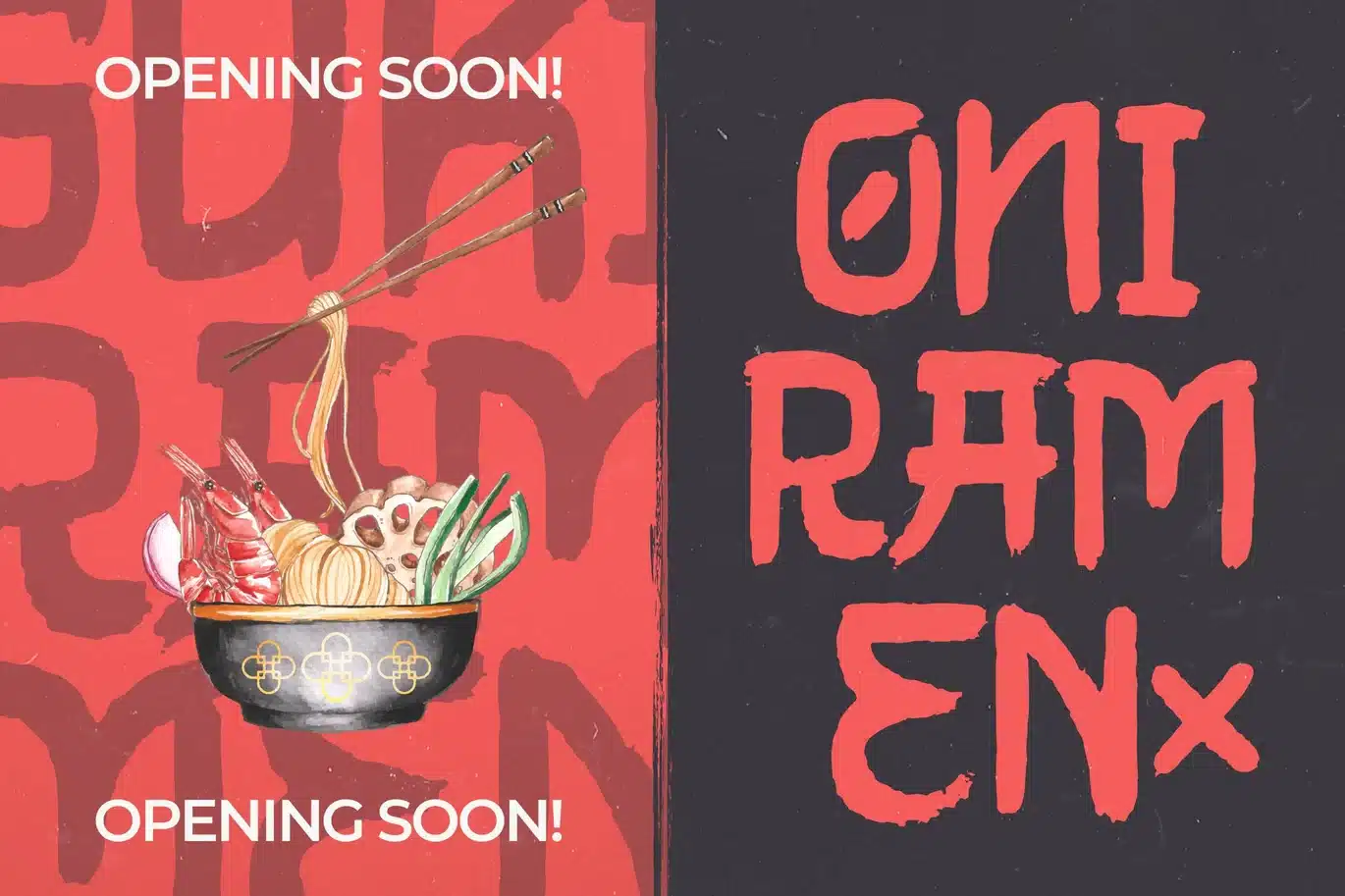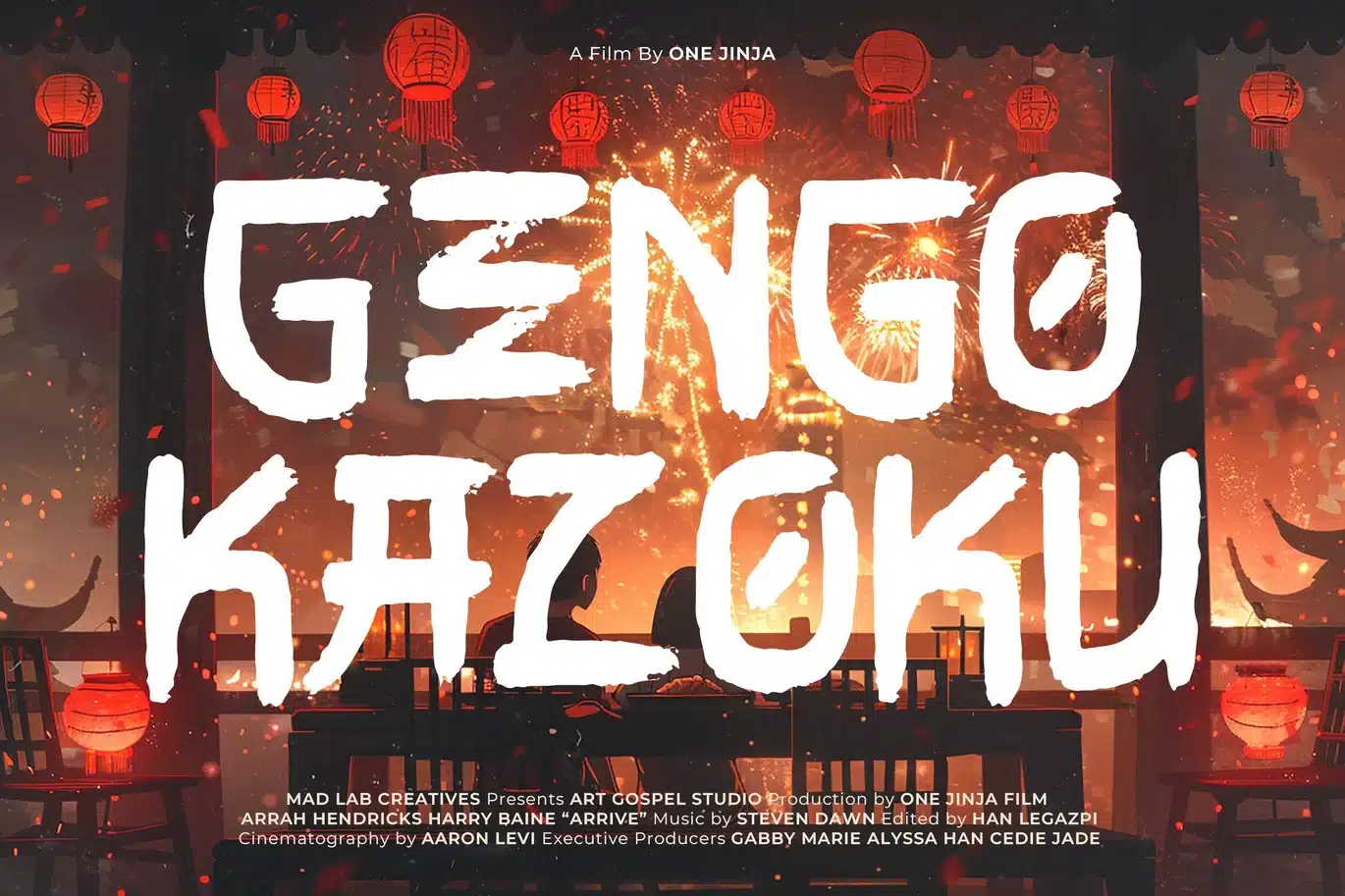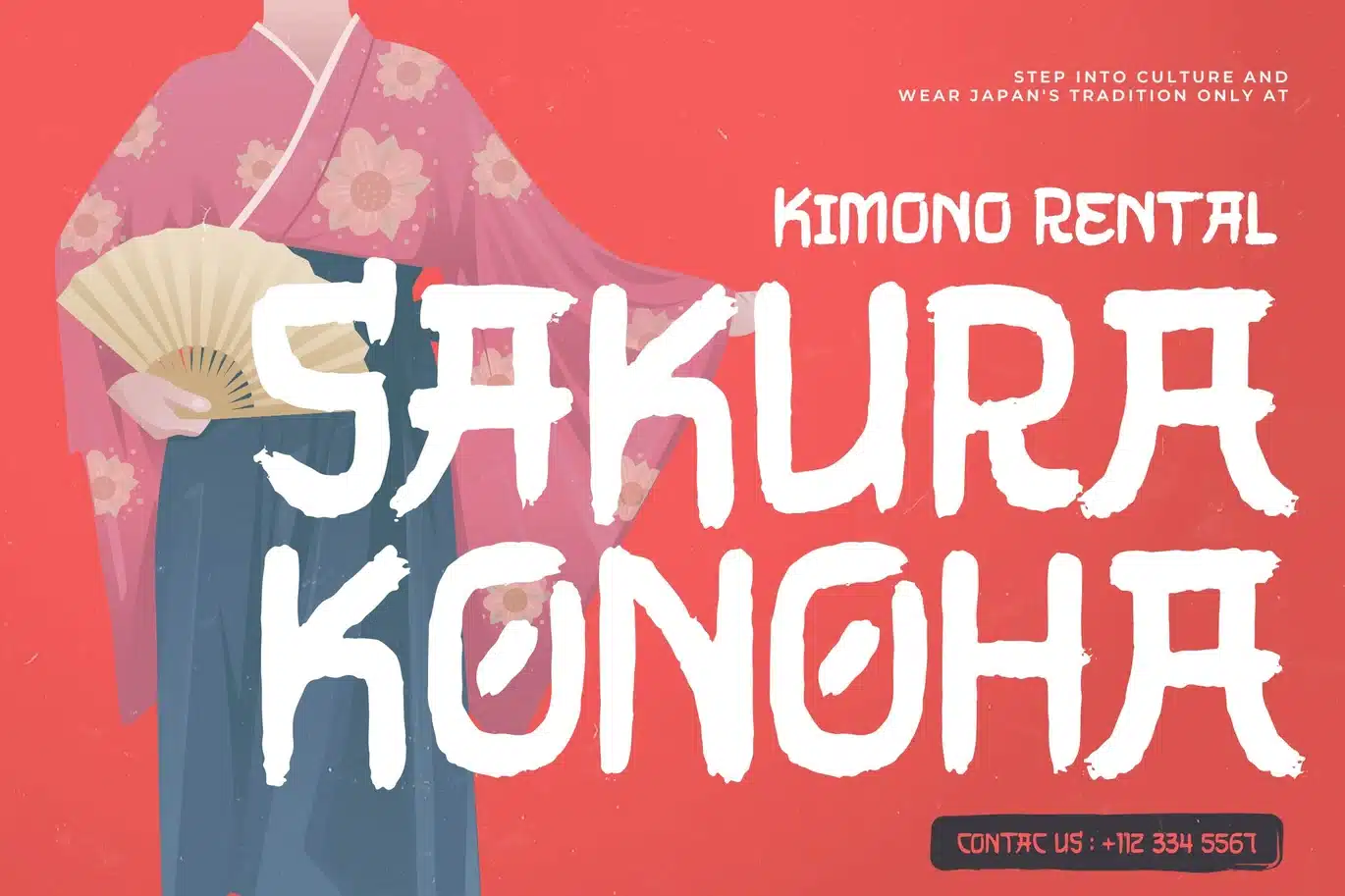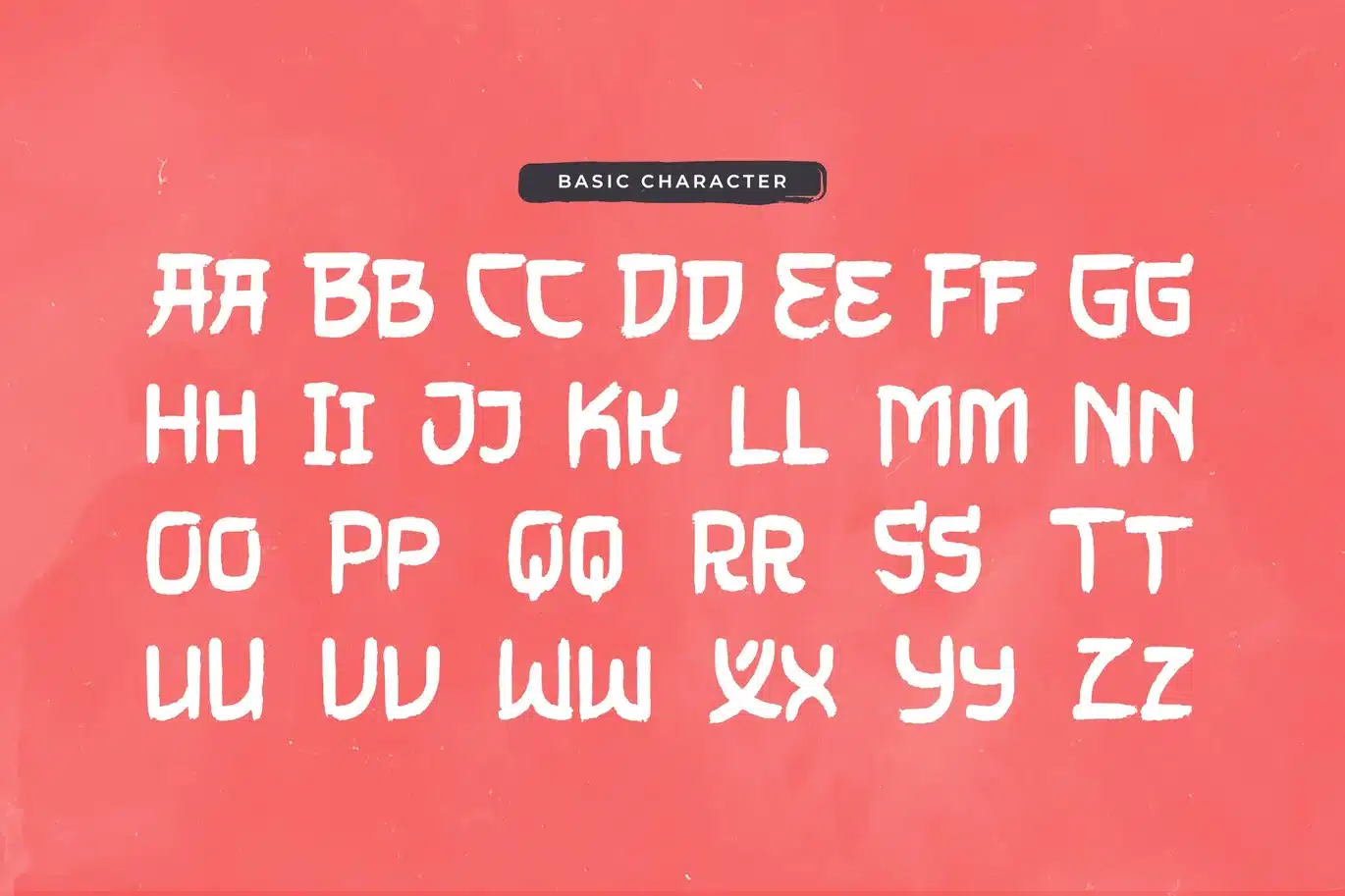
One Jinja | Japanese Brush Font
One Jinja font is designed to deliver a strong, versatile visual character, balancing aesthetics and readability. Every detail is carefully crafted to ensure a clear, consistent, and visually appealing result across a wide range of design needs.
With well-structured letter proportions and support for features such as alternate characters and ligatures, this font allows for greater creative exploration. The final result is dynamic, distinctive, and professional, making it adaptable to a range of design styles.